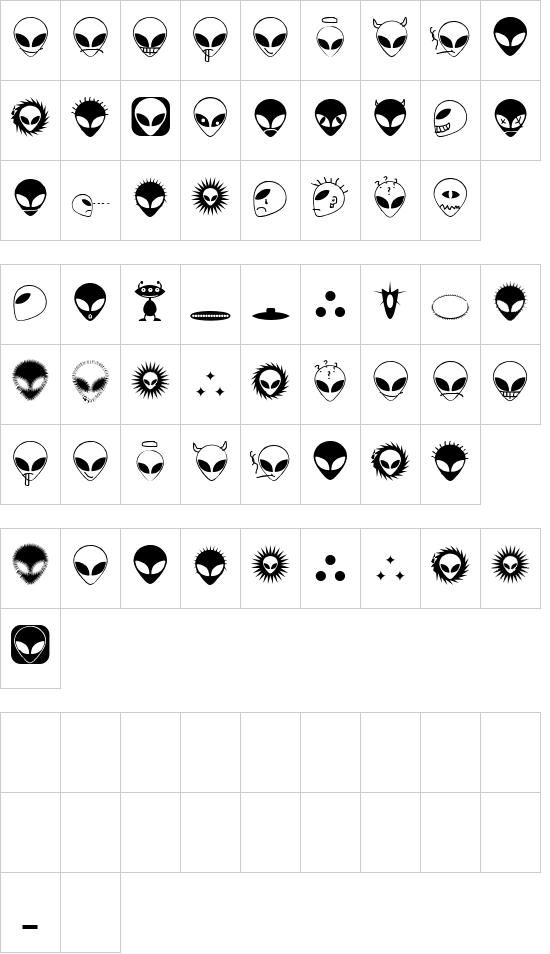
Alienator is a dingbat face packed with extraterrestrial and UFO-themed symbols rather than ordinary letters. Each key produces a flying saucer, alien, or space-themed motif instead of a character, so the set works as a ready-made kit of science-fiction graphics that you can scatter across a layout rather than read as text.
Use it for sci-fi graphics, space-themed posters, gaming icons, and novelty decorations with an alien twist. Alienator is free to download as a TrueType file, and you can tap through the keys in the preview to see which symbols appear before downloading.